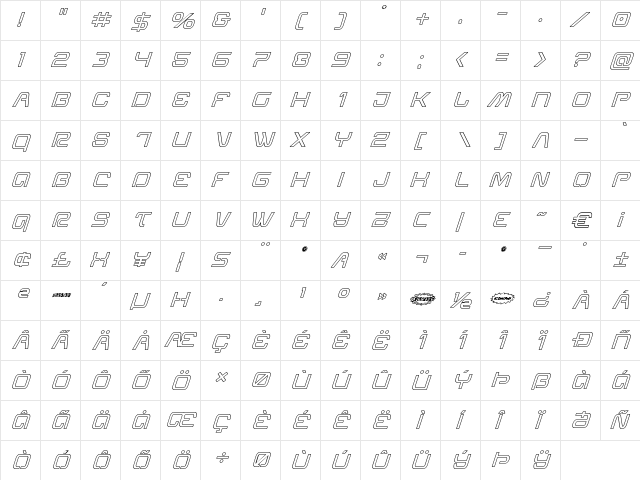
Miracle Mercury Outline Italic Outline Italic
Design Context for Miracle Mercury Outline Italic Typeface
Miracle Mercury Outline Italic is built around its visual character rather than neutral utility — its distinctive forms are designed to make an impression at display sizes. The slanted form adds forward momentum and visual energy.
Font Pairing: Pair with a clean neutral sans-serif for body copy to let Miracle Mercury Outline Italic's character lead without overwhelming the composition.
Pro Tip: Treat Miracle Mercury Outline Italic as the centrepiece of your typographic hierarchy. One strong heading set in a decorative face can carry an entire layout.